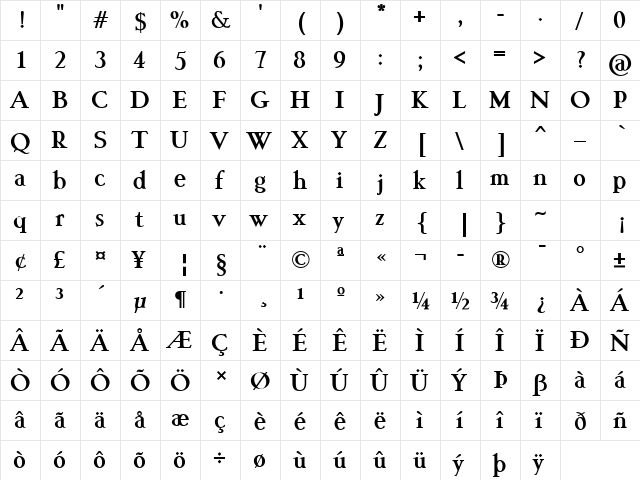
Garava Bold
| Foundry | Association for Insight Meditation |
| Designer | Bhikkhu Pesala |
Design Context for Garava Typeface
Garava offers clean, dependable letterforms without strong stylistic allegiance, making it a practical choice for designers who need flexibility. The heavy weight commands attention and anchors typographic hierarchies.